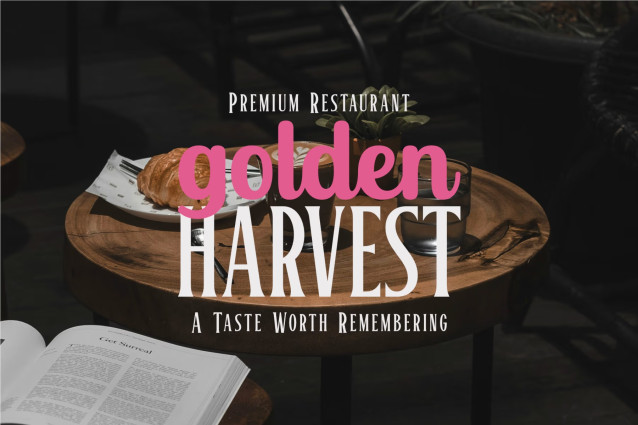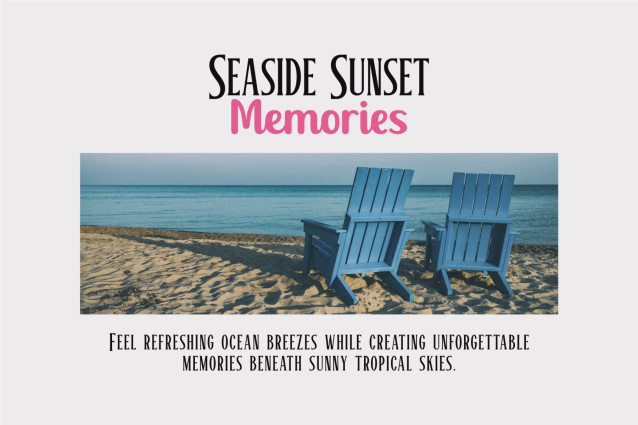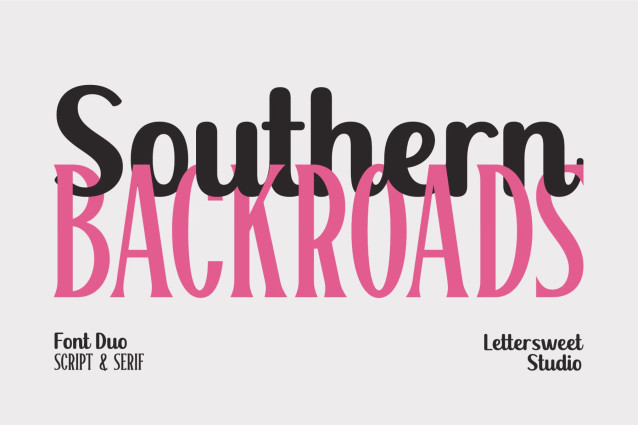
Southern Backroads Font
Southern Backroads is a stylish font duo that combines a smooth handwritten script with a tall, elegant serif, creating the perfect balance of charm and sophistication. Designed to bring a warm Southern-inspired feel to your projects, this versatile typeface is ideal for designers looking to create eye-catching and memorable visuals.
The flowing script adds personality and authenticity, while the refined serif delivers a timeless and professional appearance. Whether used together or separately, Southern Backroads offers endless creative possibilities for branding and design.
Perfect for:
– Logos and branding
– Product packaging
– Fashion labels and boutiques
– Wedding invitations
– Social media graphics
– Posters and advertising
– Magazine and editorial layouts
– Café and restaurant branding
– Merchandise and apparel designs
– Handmade and craft businesses
– Book covers and quotes
– Website headers and marketing materials
With its unique blend of rustic charm, vintage elegance, and modern versatility, Southern Backroads helps your designs stand out while maintaining a polished and professional look.